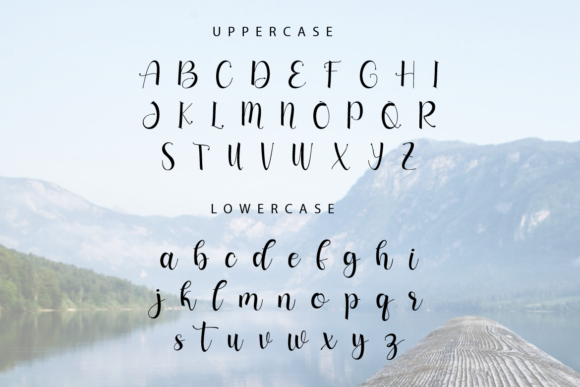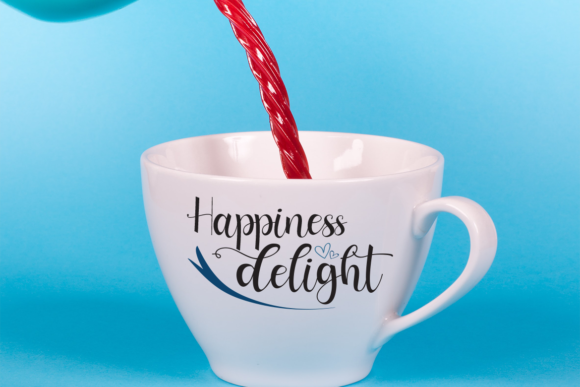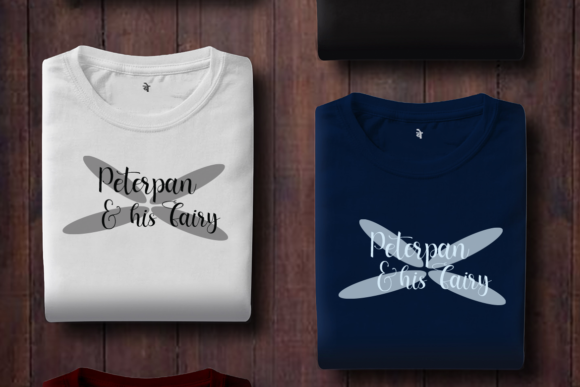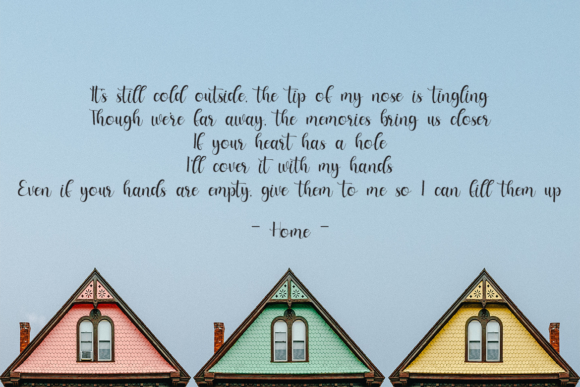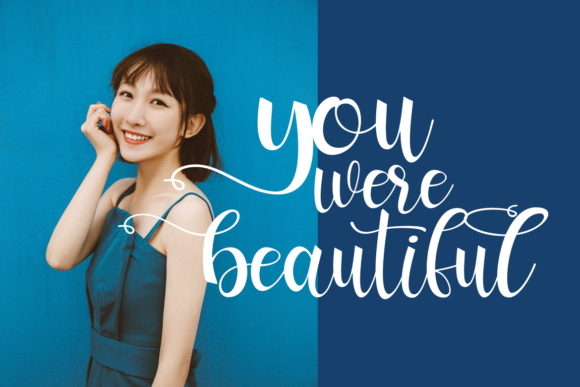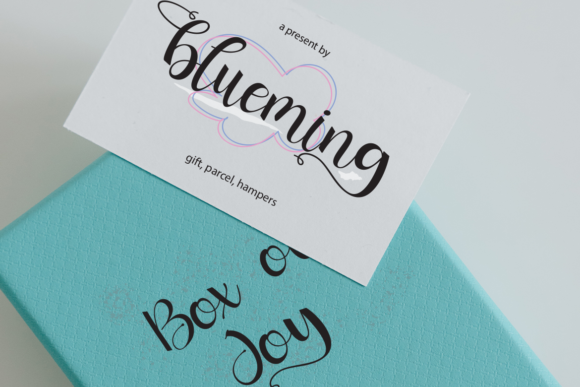
Introduction to Long Island Font
As a designer, you’ve probably had those moments when a project just isn’t coming together, and you need that one thing to elevate it to the next level. For me, it was a client’s logo redesign that needed a touch of elegance and sophistication. I spent hours browsing design resources, searching for the perfect font to match their brand’s style. And then, I stumbled upon it – the Long Island Font.
With its beautiful, round lettered handwritten style, the Long Island Font is a breath of fresh air in the world of typography. Its classy calligraphic influences make it perfect for high-end designs, while its contemporary feel keeps it relevant and modern. Whether you’re working on a high-quality design project or just need a versatile font for your next creative endeavor, the Long Island Font is an invaluable asset in your design arsenal.
Key Features of Long Island Font
- High-quality, modern design suitable for various creative projects, including graphic design, web design, and digital art.
- Unique, hand-crafted design elements, including custom glyphs and ligatures, add a touch of elegance to any design.
Honest Review: Long Island Font
I recently came across the Long Island Font, a free download that’s been making waves in the design community. As a designer, I’m always on the lookout for high-quality design resources to elevate my creative projects.
The Long Island Font is a great addition to any design arsenal, with its unique blend of modern and vintage elements. I particularly appreciate its versatility – it can be used for a wide range of projects, from logos to typography-heavy compositions.
Here are some things that work well about the Long Island Font: ✨
- High-quality design with a lot of character
- Transparent background, making it easy to use in various design contexts
- Limited font weights and styles, which may limit its use in certain situations
- No bold or italic versions available
Overall, I’m impressed with the Long Island Font and would recommend it to designers looking for a unique, high-quality font to add to their toolkit. Just be aware of its limitations, and use it judiciously to get the most out of this design resource.
Long Island Font is perfect for creative projects such as branding, logos, and typography-based designs. Its high-quality design makes it ideal for professional and personal projects alike.